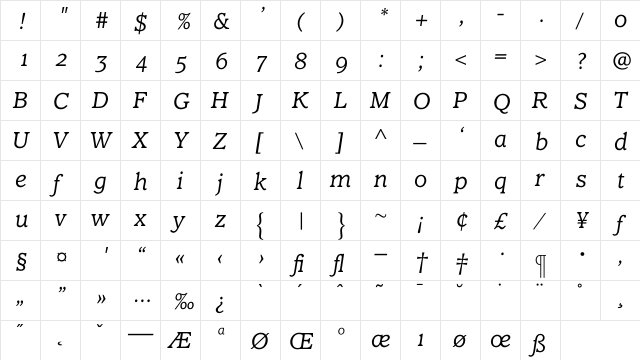
ClaremontLightItalicOS Regular
Design Context for ClaremontLightItalicOS Typeface
ClaremontLightItalicOS is a composed and adaptable typeface that performs quietly and consistently across a wide range of design contexts. The slanted form adds forward momentum and visual energy. Its slender proportions lend an understated elegance to any composition.
Pro Tip: Use ClaremontLightItalicOS for emphasis, pull quotes, and subheadings where its slanted energy can add rhythm to the layout.